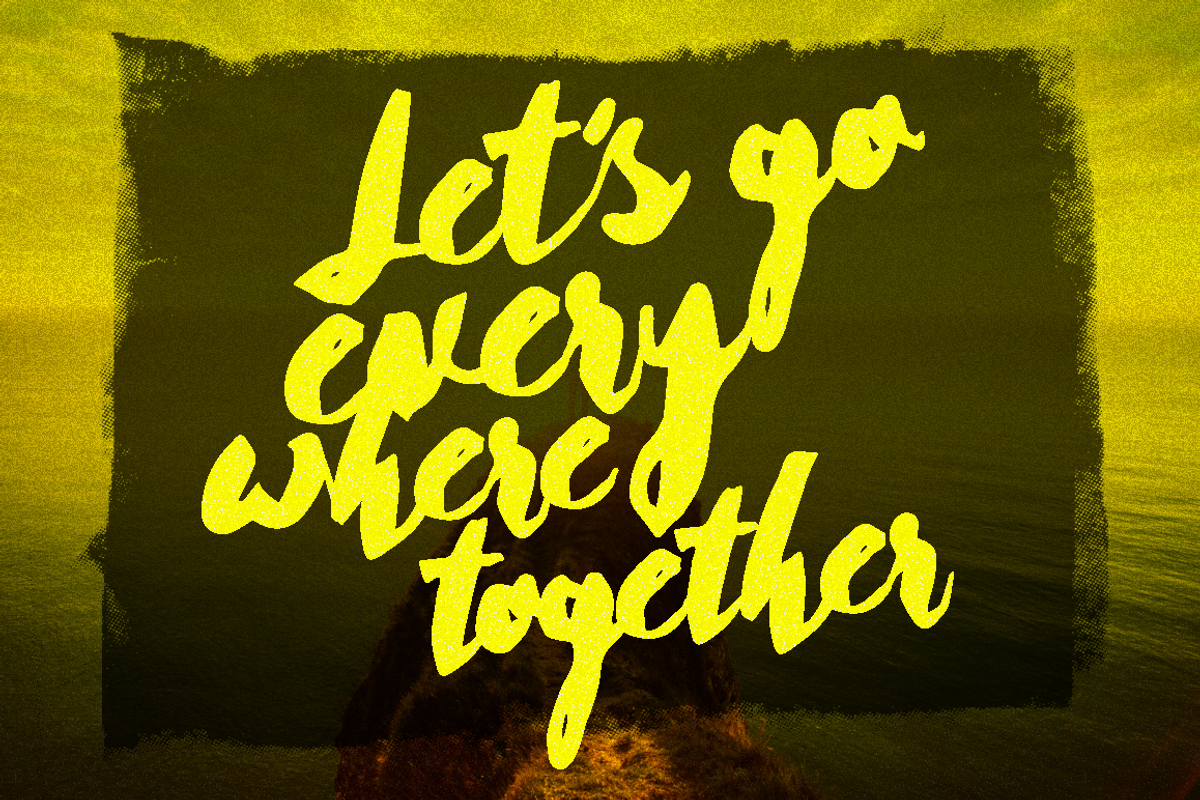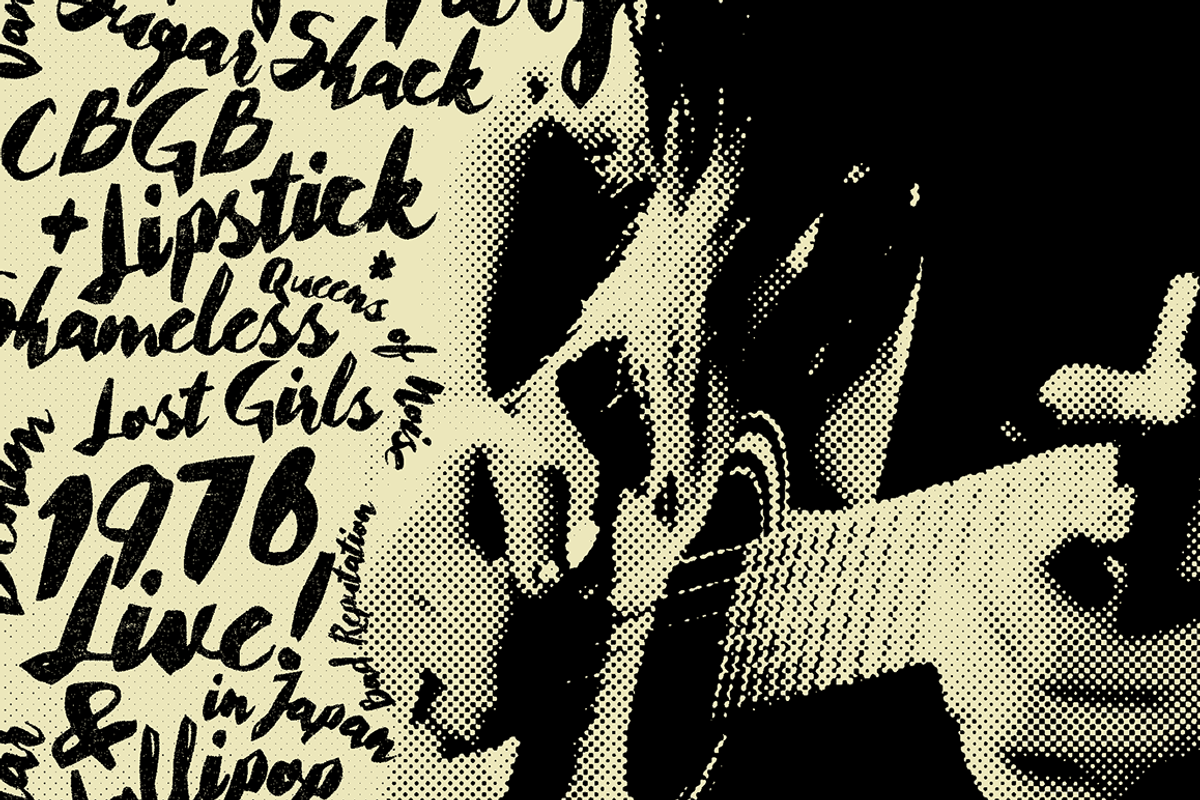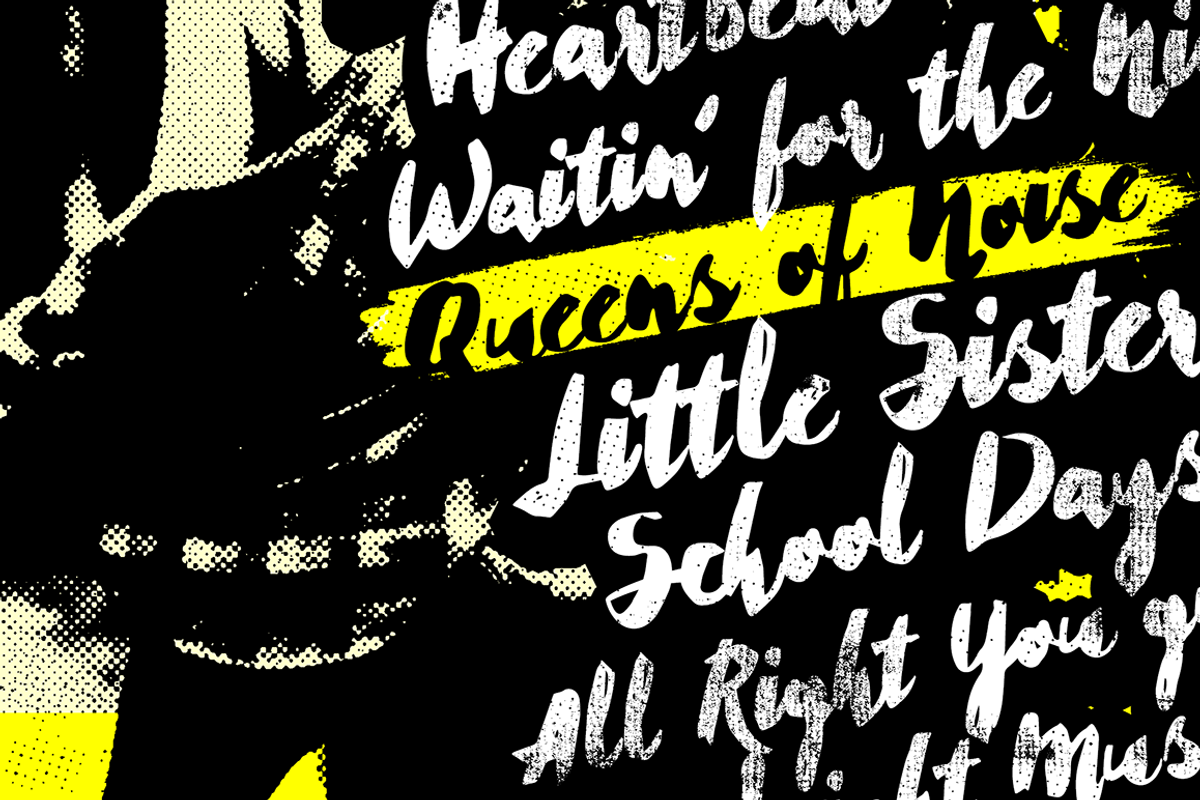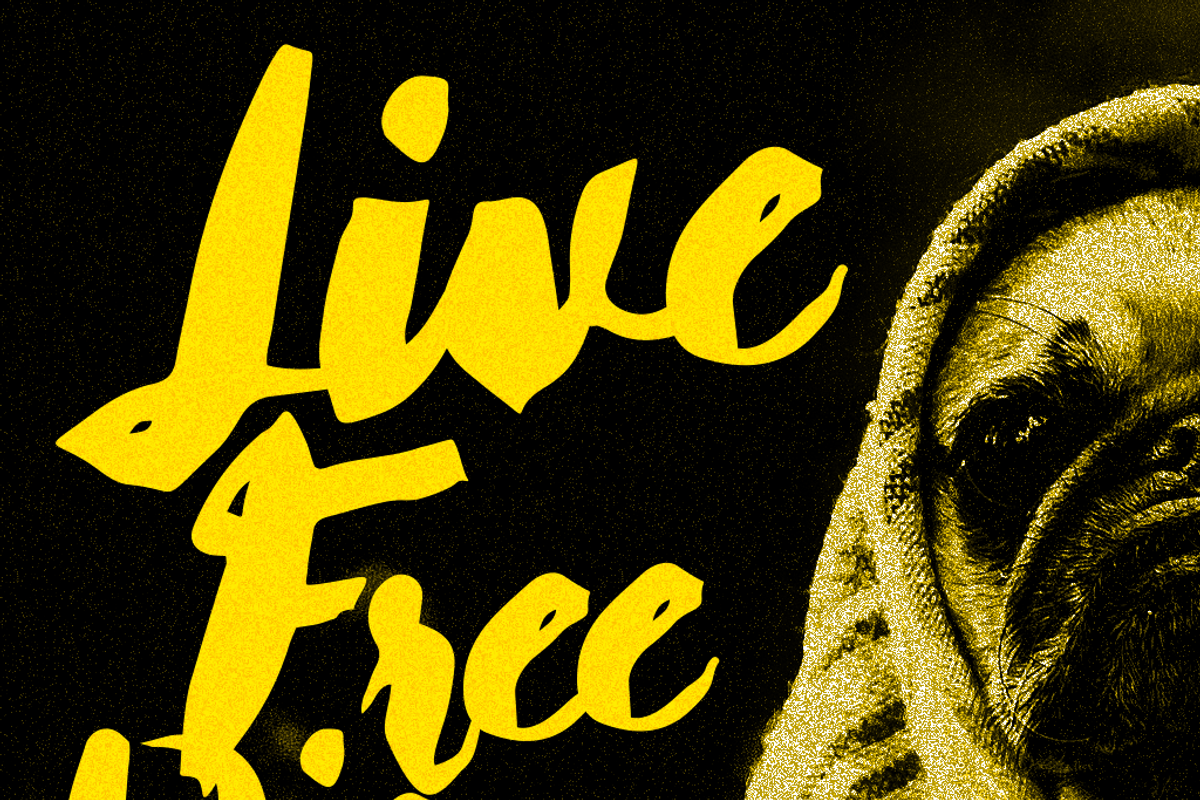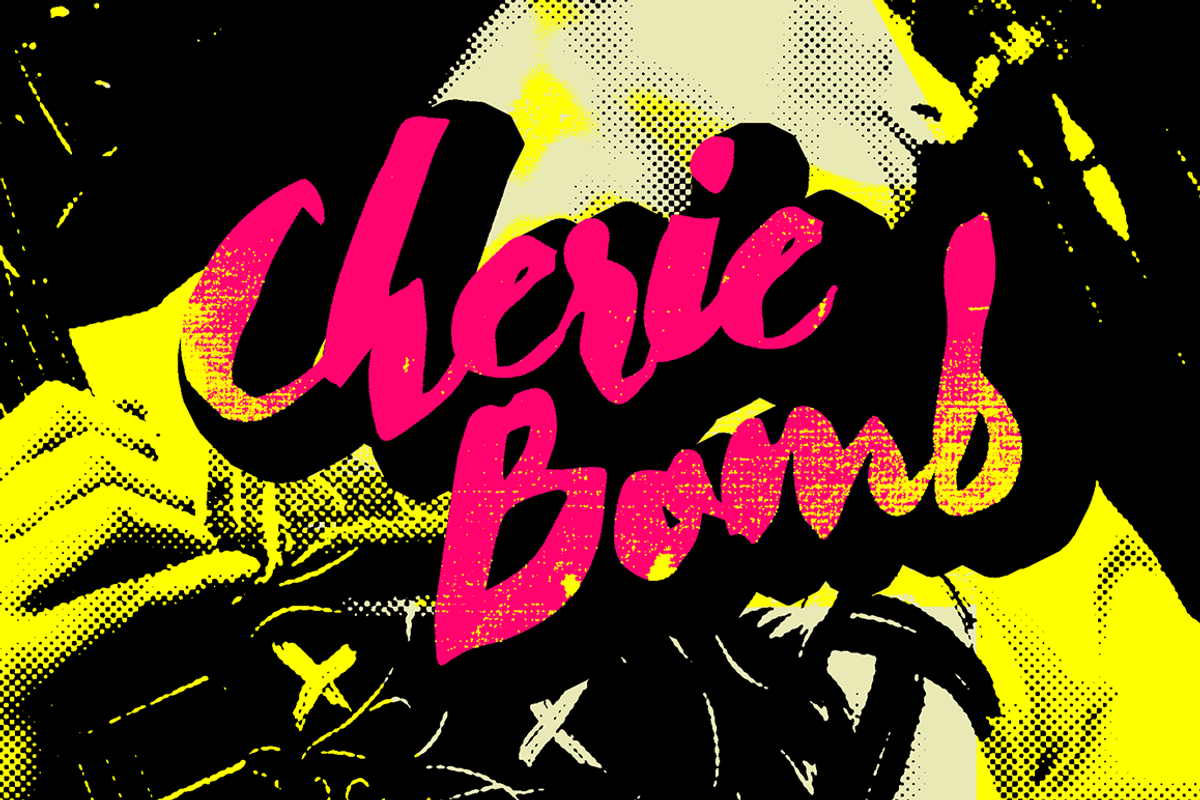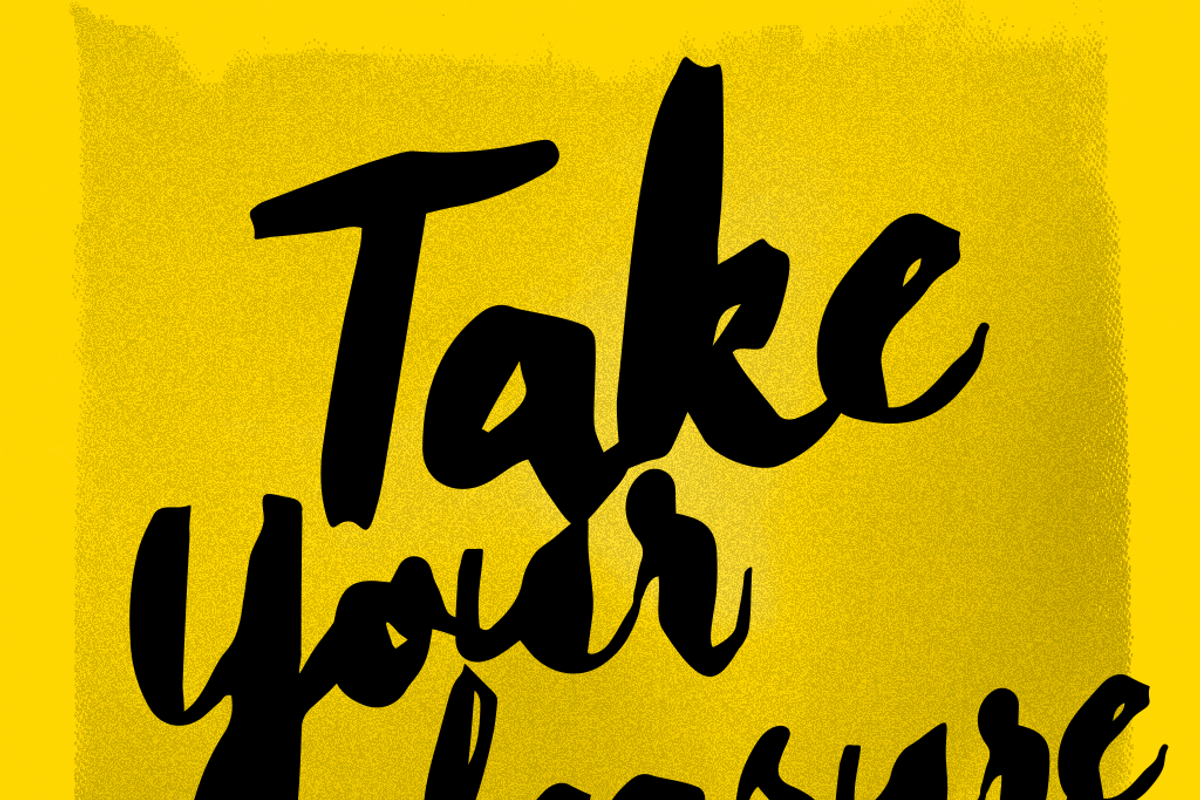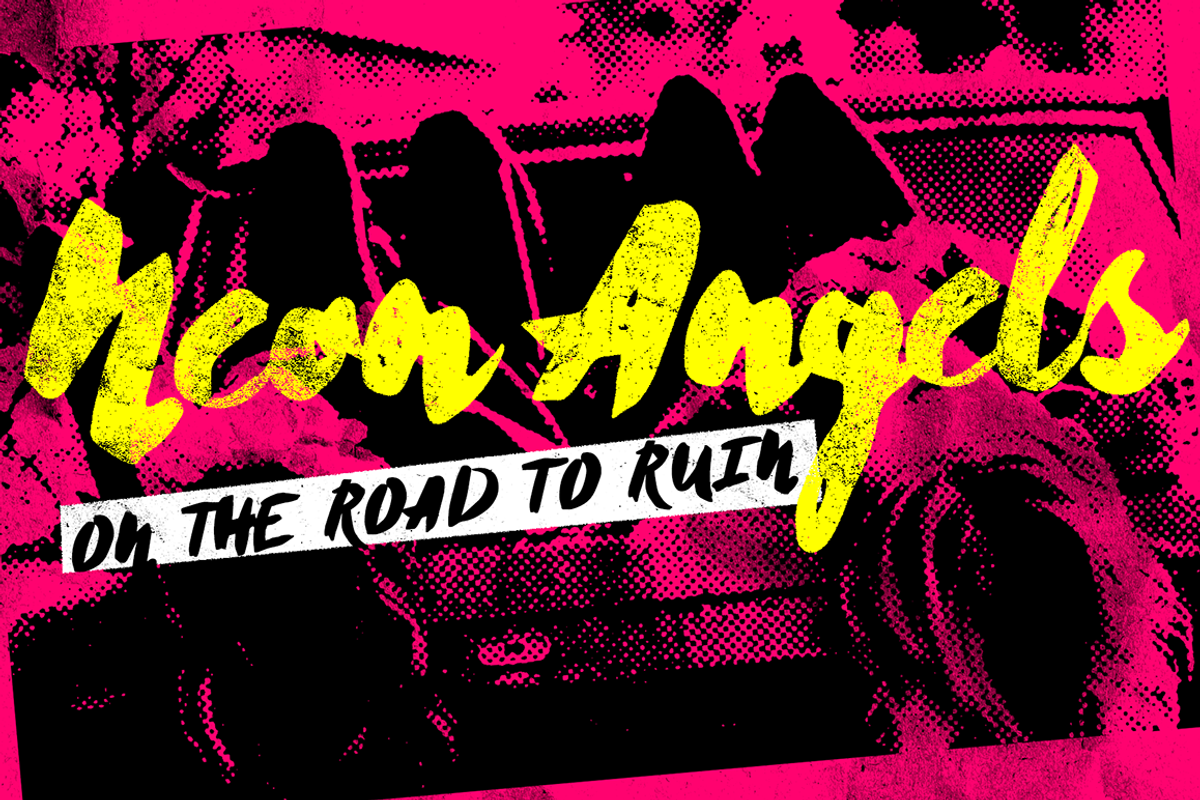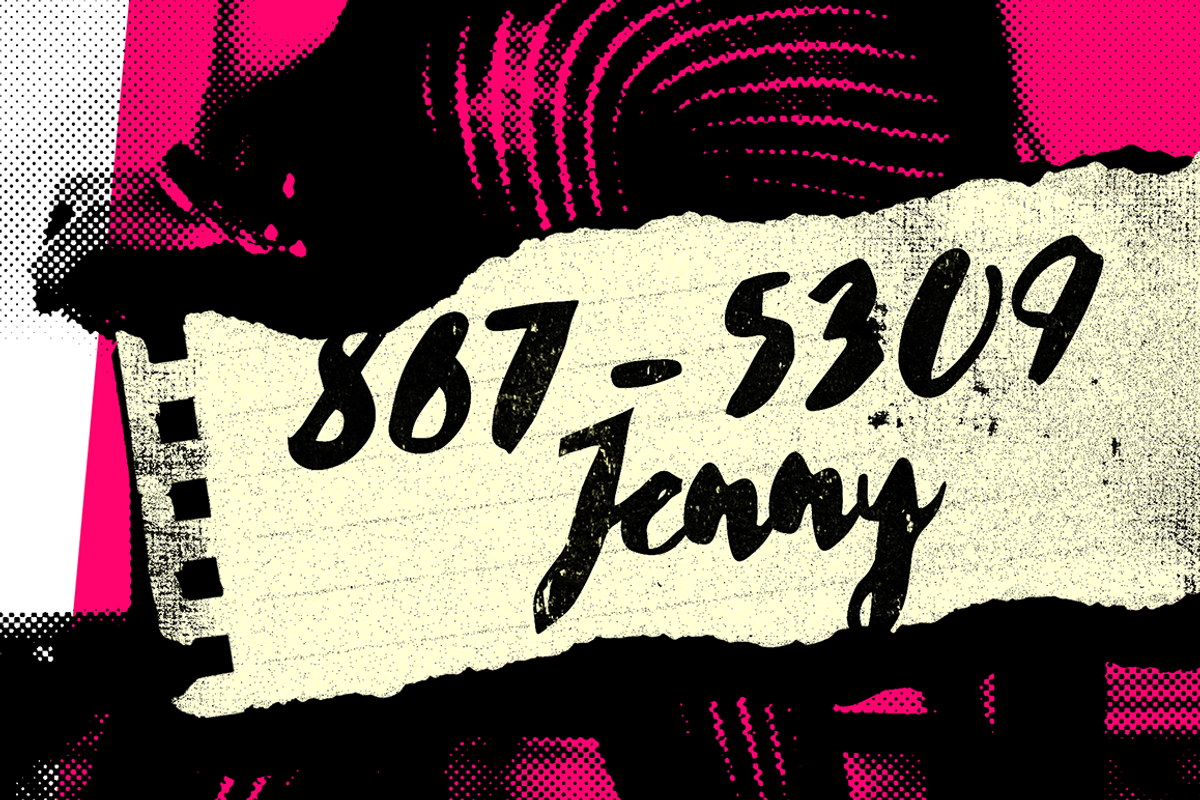
Cherie Bomb - Punk rock script font
Cherie Bomb is a handmade brush font with a punk-rock feeling, but with personality and heart. It will allow you to create stunning hand-lettering quickly and easily.
Cherie Bomb includes over 350 characters, uppercase and lowercase, basic punctuation, numerals and works great with a lot of international languages besides english.